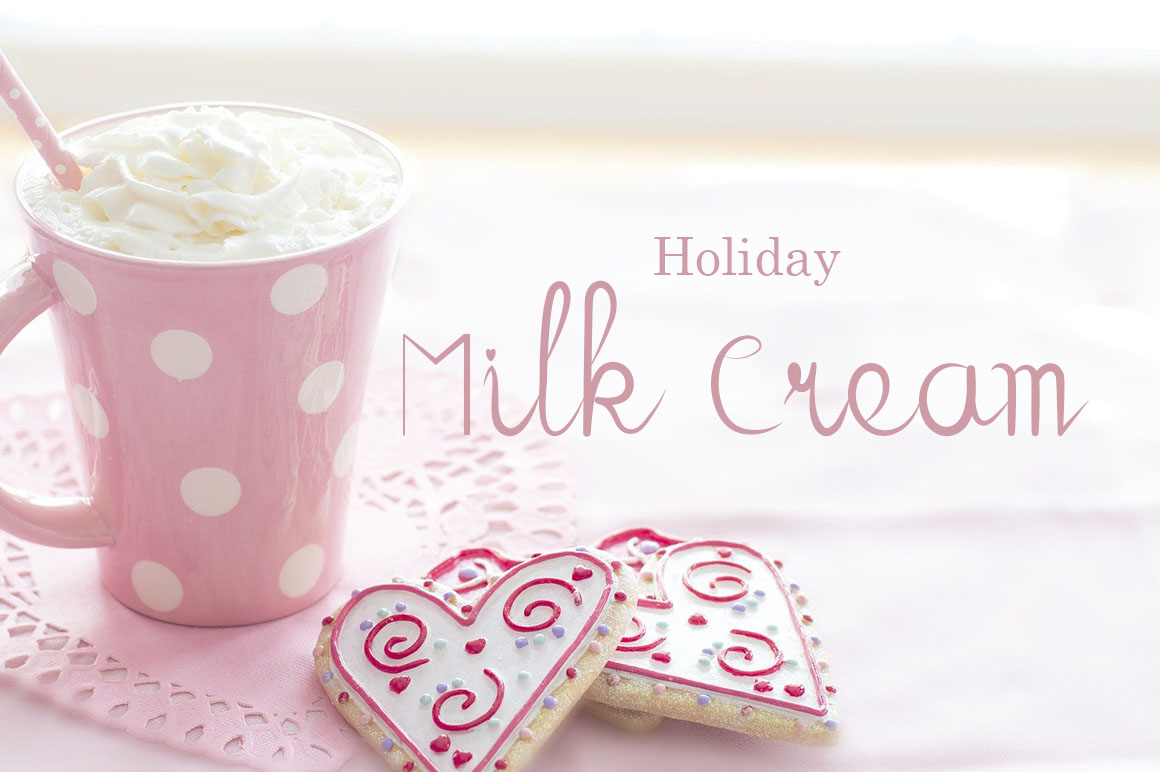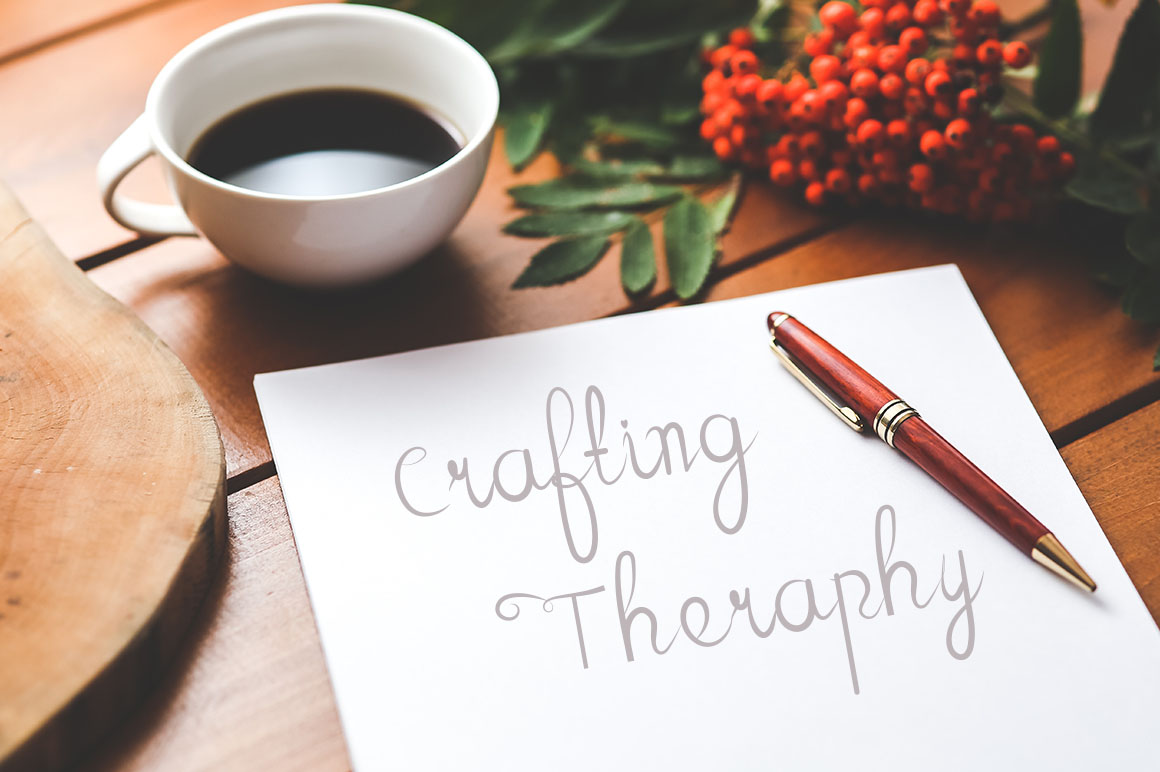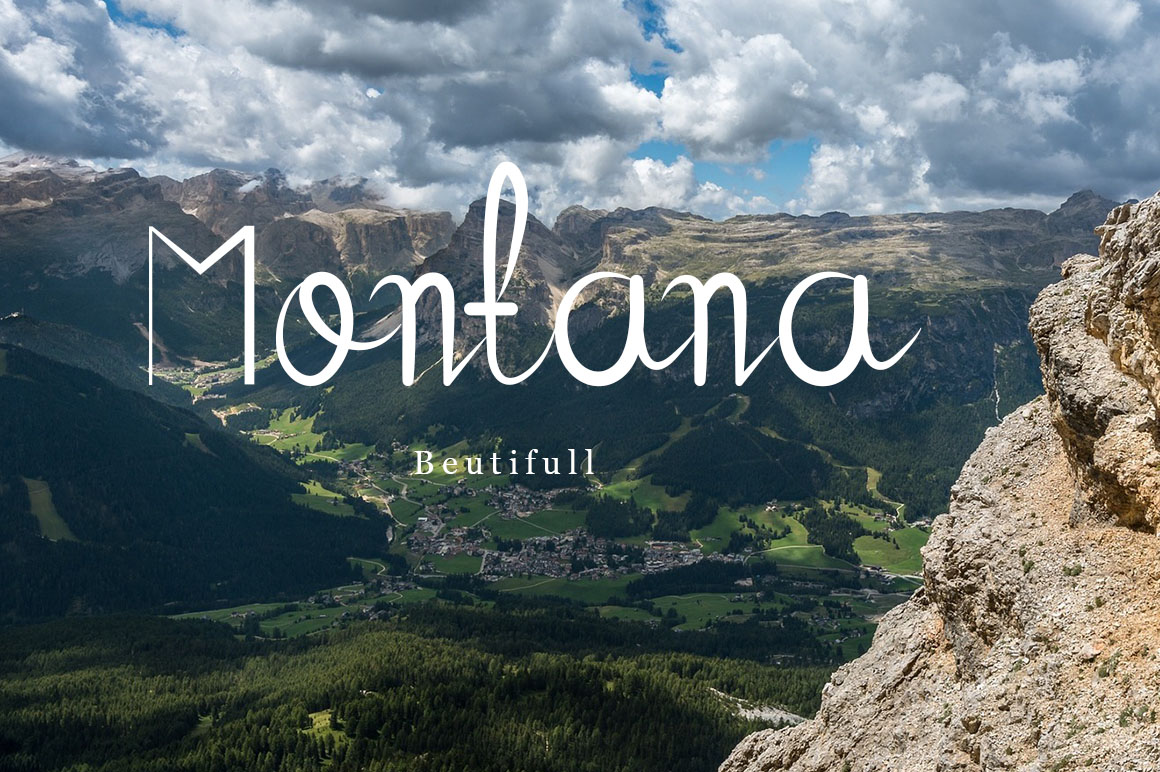
Secret Midnigh Script Font
This is an exquisite handwritten font, masterfully designed to become a true favorite. It maintains its classy calligraphic influences while feeling contemporary and fresh. Secret Midnigh is PUA encoded which means you can access all of the glyphs and swashes with ease!